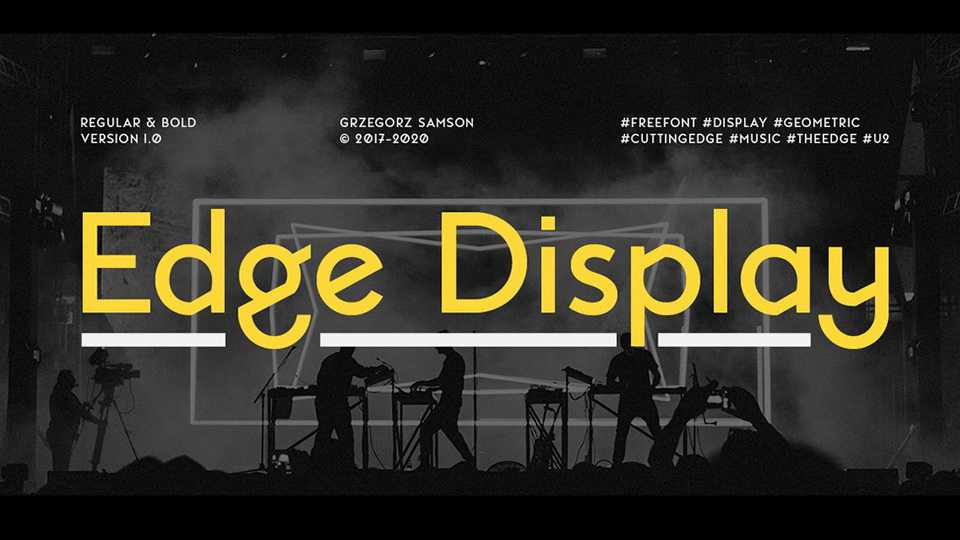
Download Edge Display typeface a geometric font family in two styles. It was inspired by The Edge from U2 and this typeface is perfect for music stuff: posters, band logos and many more.
Designer: Grzegorz Samson